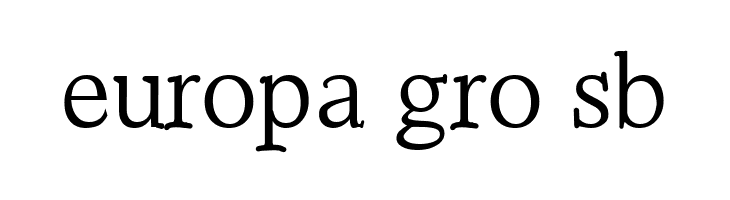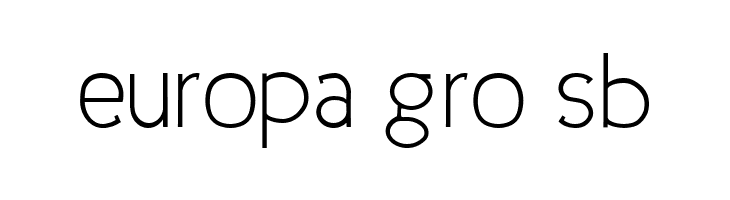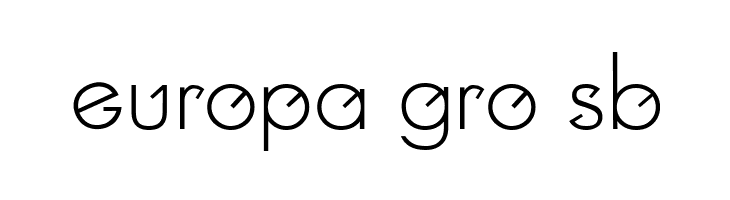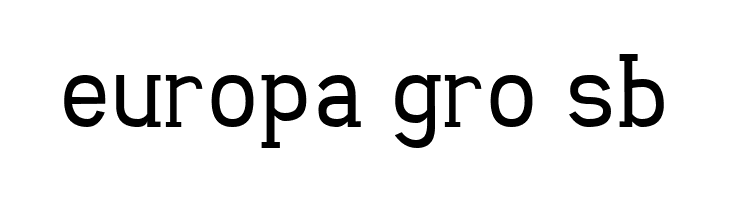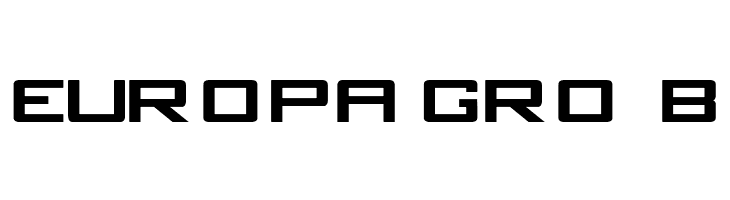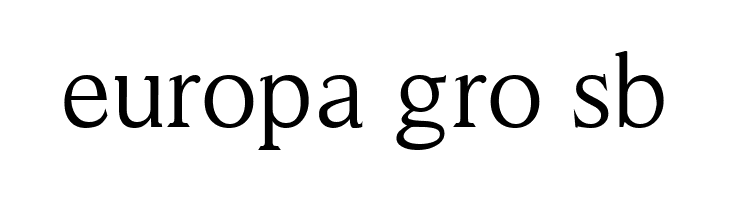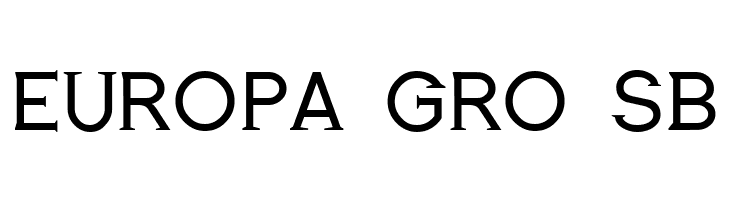
A classic serif font with modern elegance and readability.
A classic serif typeface with elegant, well-proportioned letterforms and moderate contrast.
A classic serif font with moderate contrast and elegant proportions.
A classic serif font with elegant proportions and moderate contrast, ideal for sophisticated designs.
A modern, light sans-serif font with clean lines and excellent readability.
A modern, geometric sans-serif font with a clean and uniform appearance.
A modern, clean font with excellent readability and balanced proportions.
A festive typeface with Christmas-themed decorations in uppercase letters.
A bold, geometric font with a futuristic and technical design.